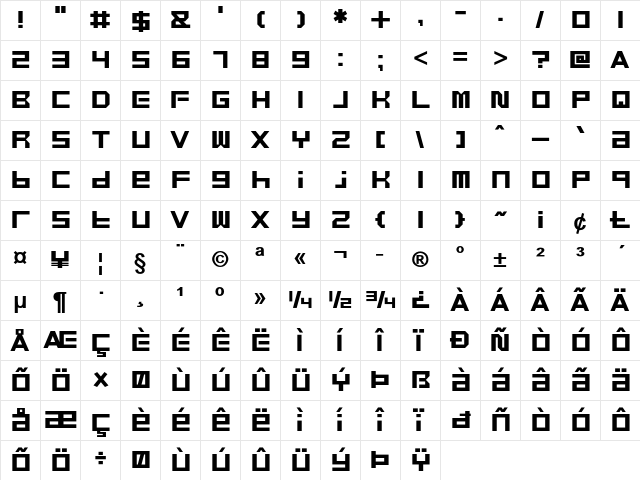
Bullheaded Bold Free Font
Bullheaded Bold
Bullheaded Family
Bullheaded Bold
Design Context for Bullheaded
Bullheaded is a composed and adaptable typeface that performs quietly and consistently across a wide range of design contexts. Its bold stroke weight gives it real presence on the page.